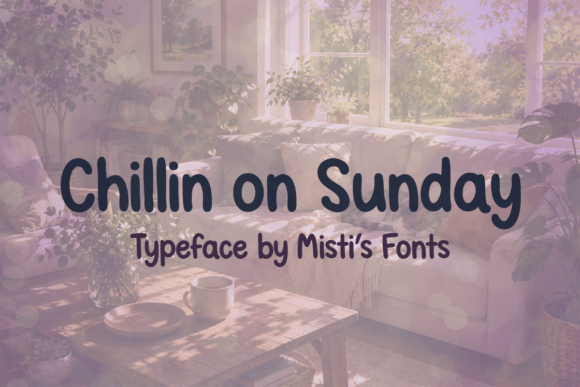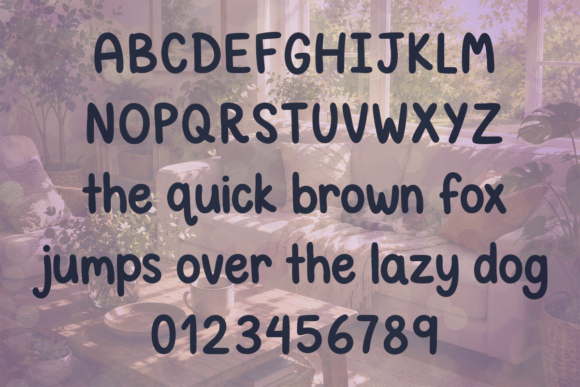
Find Your Sunday State of Mind with the Chillin on Sunday Font
There’s something about curling up with a warm cup of coffee on a lazy Sunday morning, surrounded by the gentle hum of a morning routine, that feels like the epitome of relaxation. The world outside may be bustling, but in this quiet moment, all that matters is the gentle rhythm of your breath and the soft glow of the morning light. It’s a feeling that’s hard to replicate, but what if you could capture that essence in the fonts you choose for your designs?
Enter the Chillin on Sunday Font, a unique handwriting font that embodies the carefree spirit of a Sunday morning. With its simplicity and effortless cool, this font is perfect for designers looking to convey a sense of relaxation and informality in their work. By choosing the Chillin on Sunday Font, you’ll be able to tap into that Sunday state of mind and bring a touch of tranquility to your designs.
Chillin on Sunday Font Key Features
- Font Size: 1 style (all caps), 1 style (small caps), 1 style (lowercase), 1 style (uppercase)
- Unique Characteristics: The font features a laid-back, casual vibe with a mix of cursive and sans-serif elements, making it perfect for informal and creative projects.
- Language Support: Multilingual support, including Latin, Cyrillic, and Greek scripts
- Font Style: Casual, cursive, and sans-serif elements blend together to create a unique, eye-catching design
Designer Review: Chillin on Sunday Font
Overall, I think the Chillin on Sunday font has some great qualities that make it a fun and laid-back choice for designs. ✨ The font’s relaxed, cursive feel immediately conveys a sense of casualness and friendliness, which makes it perfect for projects that need to feel approachable and inviting.
Some of the things that work well about this font include:
- The fluidity of the letters, which gives the font a smooth and natural feel.
- The variety of weights and styles, which makes it easy to customize and create a range of moods.
- The font’s ability to work well in both digital and print applications.
However, there are also some limitations to consider: ⚠️ The font may not be the best choice for projects that require a lot of precision or technicality, as the cursive feel can sometimes make it difficult to read.
Overall, I think the Chillin on Sunday font is a great choice for designers who want to create a relaxed and approachable vibe in their designs. With its fun, laid-back feel and versatility, it’s a great addition to any font collection.
The Chillin on Sunday Font is perfect for creating a relaxed and fun atmosphere. Use it for:
– Social media posts and stories
– Blog titles and headings
– Party invitations and flyers
– Sunday-themed designs and graphics
Remember to experiment with different font sizes, colors, and combinations to get the most out of this fun font.
Q: Is Chillin on Sunday available in any other languages?
Chillin on Sunday is a Latin-based font, which means it supports languages that use the Latin alphabet, such as English, Spanish, French, and many others. However, it may not support languages that require non-Latin scripts, such as Chinese, Japanese, or Arabic. If you need a font that supports multiple languages, please contact the font provider for more information.